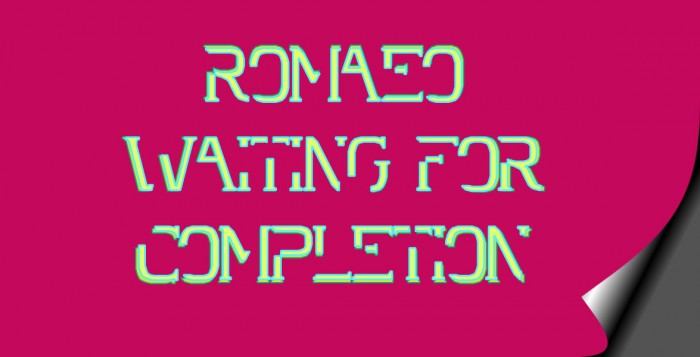
I recently saw a type face with bits missing and thought "Looks interesting, can I do something with this idea?". I used one of my older sans designs but soon discovered that I needed serifs to get logic to the gaps ;) So I started work on a good serif design to use as the base. Here is my interpretation of what I saw, it looks rather different from the one that inspired me.
You should expand this set to the fullest. like more alt. glyphs, greek, russian, japanese, etc.
@ brynda: I know you like to see glyphs for foreign languages and writing systems. Romaeo Intuition is a fun design not for long texts. I can't see it used in Greece, Japan, India, the Balkans etc etc. I will add French and German diacritics soon. My limit is Greek and Cyrillic; although I'm not familiar with the languages their countries are close enough to the EU to have some interest in Latin based fonts and I want to make the occasional font of my more unusual/display ones available to them.
I have extended one of my fonts for Hebrew text because it looked suitable and from an aesthetic view point it worked really well. But I doubt that anybody outside the western EU countries would use them so I don't add too many glyphs for foreign languages and I don't allow any distributor. I don't usually go further than 'More Latin' and some important glyphs in 'Latin XT A', 'Lt.XT B' and 'Lt.XT C' when required by family and friends, usually when I have the time and no other font ideas to work out.
I assume you didn't like Romaeo Intuition? What aspect attracted you to look at it?
Upper case only, numbers, essential punctuation. Now with 'More Latin' UC plus a few more symbols.
alt letters with other side missing a bit
@ Bryndan: I don't understand what you mean, I'm a bit puzzled (°.°) Please explain
A with the top right, L with the top left, E with the bottom left, etc. missing
Love it, W a bit hard to read.
@ Davykins: thank you for your comment :) I've added a few pixels' height to the arm and narrowed the 'gap' to make the W more obvious.